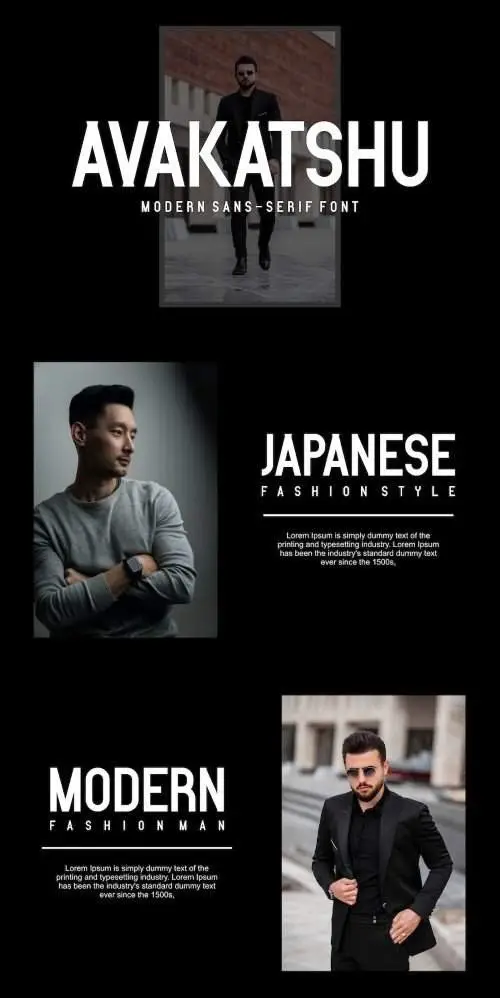
Avakatshu Fonts
Introducing our new product Roghan Avakatshu Fonts modern fonts.
Roghan Adventure Fonts modern font is a bold and authentic display font. The font is suitable for any branding project like.